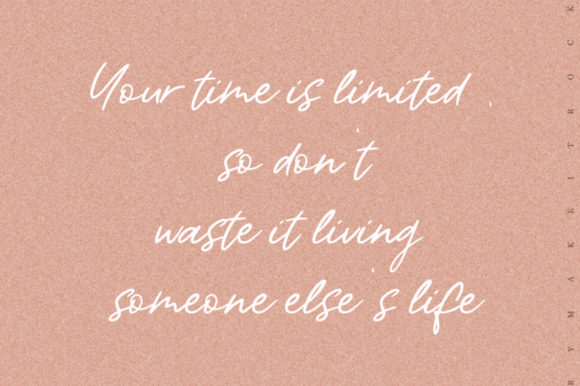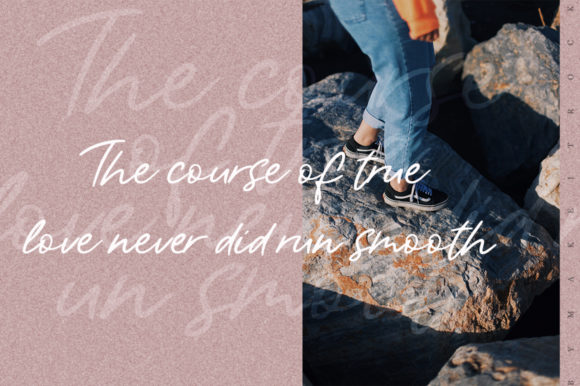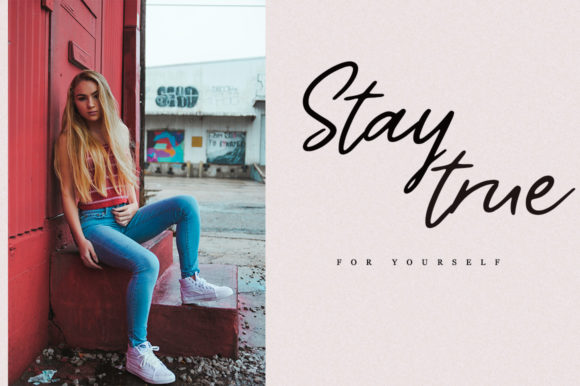
Introduction to Femto Font
Femto is a light and contemporary handwritten font with a unique spin.
It will inspire any design idea with its bold elegance .
Why Choose Femto Font?
Femto Font offers exceptional quality and versatility, making it a valuable addition to your design toolkit. Whether you’re creating for personal projects or commercial use, Femto Font delivers professional results.